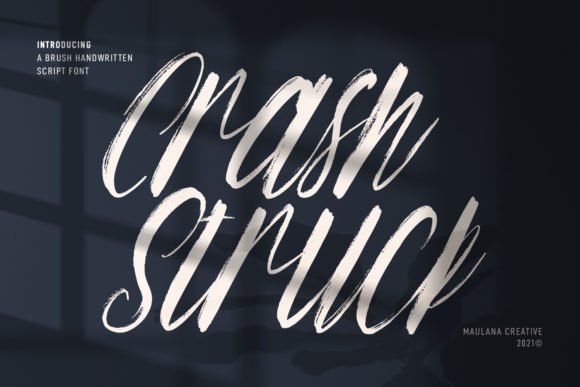
Introduction to Crash Struck Font
Crash Struck is a casual brush script font.
With regular rough brushstrokes, fun characters, and a stylish vibe, this font will elevate the appearance of all creative projects Use it for movie titles, book titles, or any other beautiful creation.